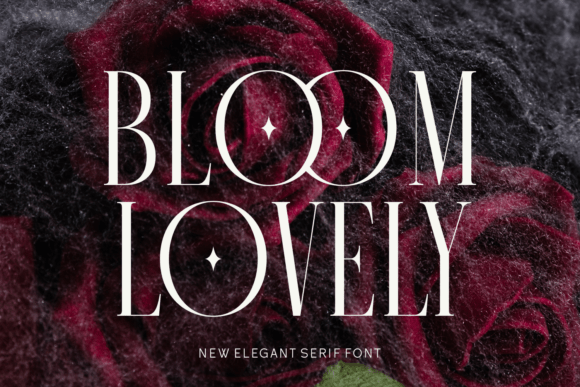
The Elegance of Bloom Lovely Font: A Designer’s Delight
I’ll never forget the time I was working on a luxury branding project for a high-end fashion client. I had spent hours pouring over design concepts, but something was missing – the perfect font. That’s when I stumbled upon Bloom Lovely, a strikingly elegant serif font that instantly elevated my design game. In this article, I’ll share my experience with Bloom Lovely, its unique features, and how to make the most of this beautiful font in your creative projects.
An Honest Review of Bloom Lovely
• ✅ Elegant letterforms: Bloom Lovely’s tall, graceful letterforms exude sophistication and refinement.
• ✅ Unique diamond-shaped accents: The font’s distinctive accents add a touch of luxury and glamour to any design.
• ✅ Versatility: Bloom Lovely is perfect for a range of applications, from high-fashion editorials to wedding invitations and upscale packaging.
• ✅ Modern yet timeless: This serif font seamlessly blends modern style with classic elegance.
While Bloom Lovely is an exceptional font, there are a few minor quirks to be aware of:
• 🤔 Limited use of bold weights: Bloom Lovely’s bold weights can be a bit overpowering, so use them sparingly.
• 🤔 Glyph limitations: Some users have reported limitations when using certain glyphs or special characters.
Bloom Lovely was designed with one goal in mind: to create a font that exudes beauty and class. Inspired by the elegance of luxury brands and high-fashion editorials, this serif font combines modern style with timeless sophistication. Whether you’re a designer, crafter, or creative hobbyist, Bloom Lovely is the perfect addition to your font library.
Q: What makes Bloom Lovely so special?
A: Bloom Lovely’s unique diamond-shaped accents and elegant letterforms set it apart from other serif fonts.
Q: Is Bloom Lovely suitable for body text?
A: While Bloom Lovely is elegant, it’s best suited for headlines and titles. For body text, consider a more readable font.